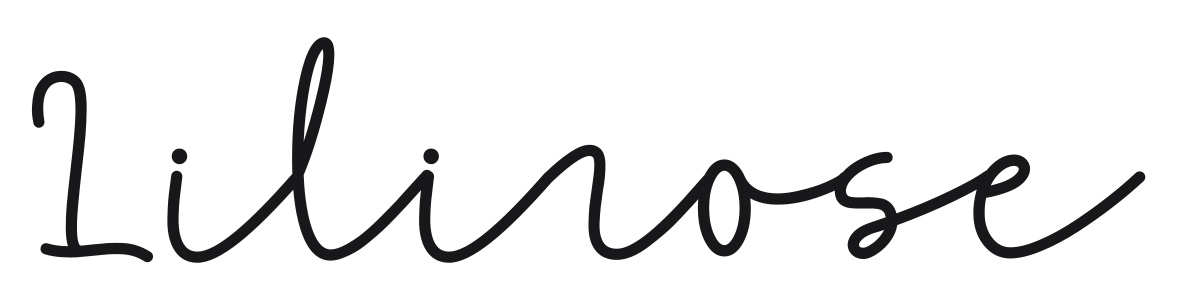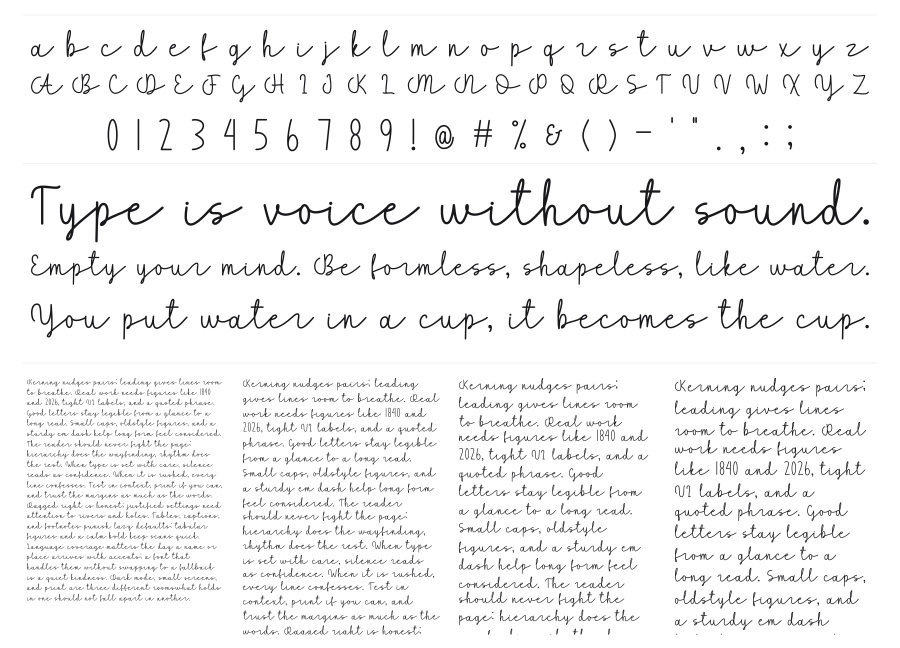
Lilirose
by Fillo Graphic · Website
Lilirose is a flowing monoline cursive script with a continuous looping connection between letters that feels naturally hand-penned. The near-zero stroke contrast and relaxed, wandering baseline give it an intimate, personal quality. It suits branding, packaging, and social graphics where a soft, romantic handwritten tone is the goal.